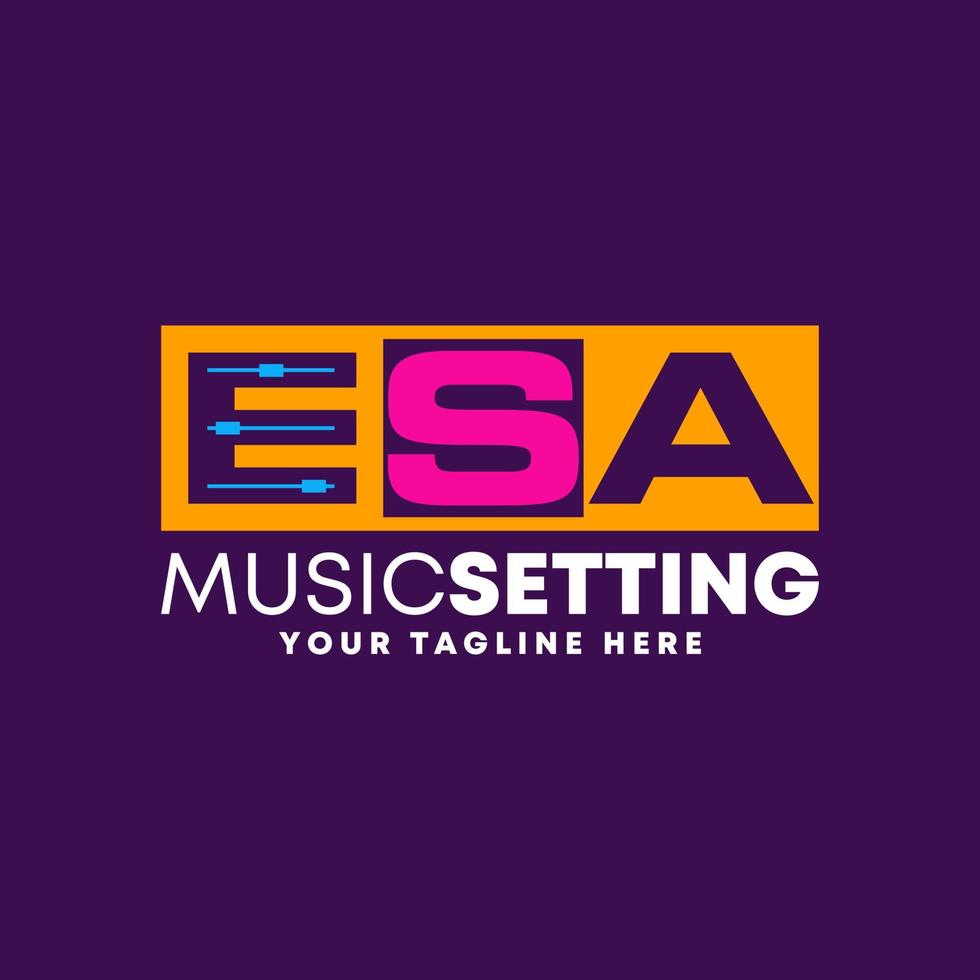
Letter or word ESA sans serif font with Audio mixer setting in square block image graphic icon logo design abstract concept vector stock. Can be used as a symbol related to initial or music. Pro Vector